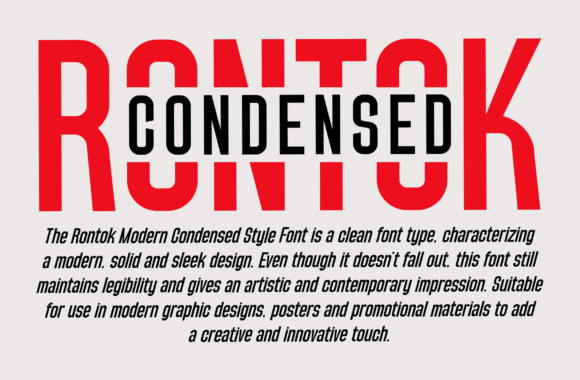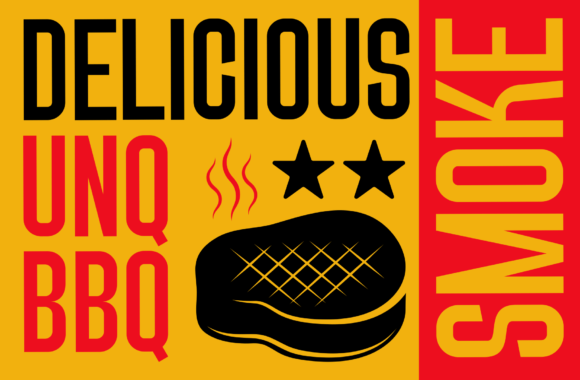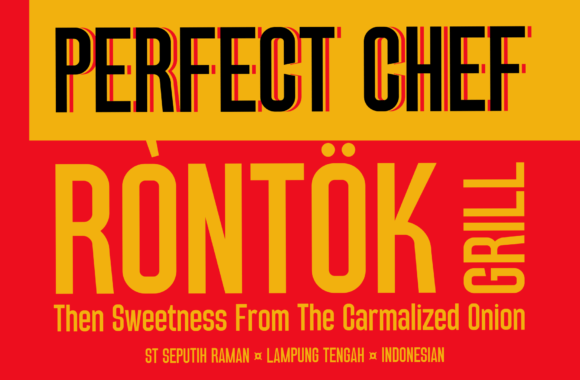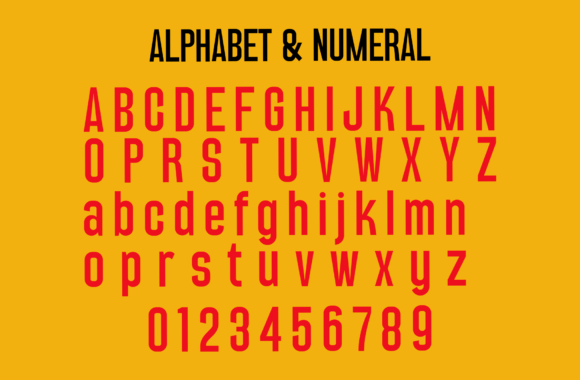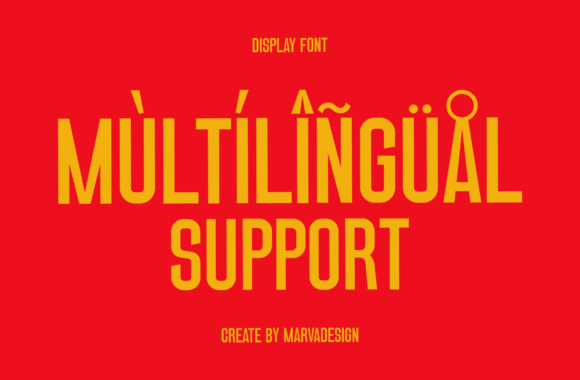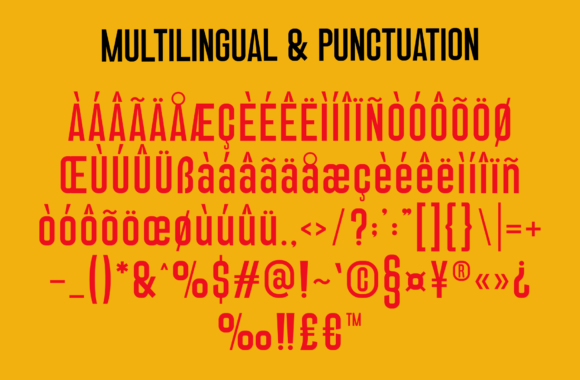
Introduction to Rontok Font Font
Fonts play a crucial role in design, and the Rontok Font font is a typeface that brings both character and versatility to any project. Whether you’re working on a branding project, a website, or a print design, the Rontok Font font offers a unique style that can elevate your work.
Rontok is a modern, sleek, and compact sans-serif font.
It has clean lines and a streamlined look, making it perfect for a contemporary and minimalist design The letters are narrow, saving space without sacrificing readability.
Key Features of Rontok Font Font
Why Choose Rontok Font Font?
The Rontok Font font is more than just a typeface – it’s a design tool that helps you communicate your message with style and clarity. Its unique character set and versatile design make it suitable for a wide range of applications, from elegant invitations to bold headlines.
With its carefully crafted letterforms and balanced proportions, the Rontok Font font ensures readability and visual appeal across all mediums.
What makes Rontok Font font special?
The Rontok Font font stands out with its unique design, exceptional readability, and versatility across various design applications.